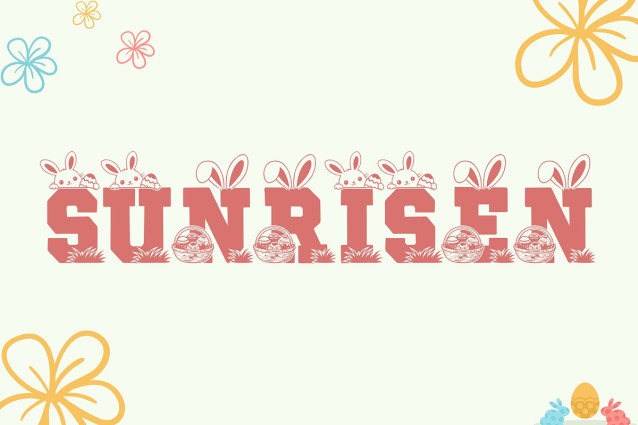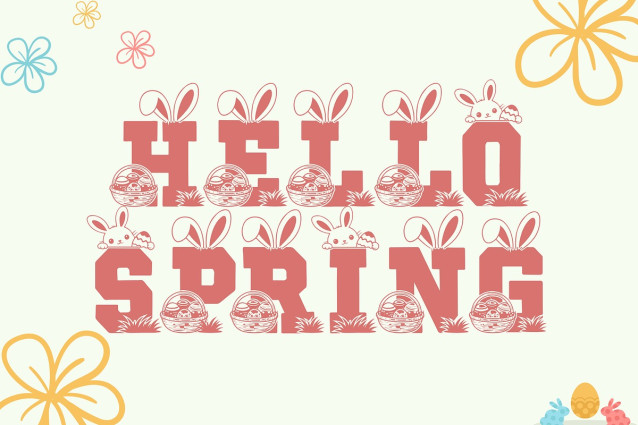
Blockton Easter Font
Blockton Easter Font is a bold block display font designed with a cheerful spirit. It keeps the strong, chunky structure of Blockton while adding a light, friendly seasonal feel that works perfectly for spring designs. The letterforms are thick and well balanced, so they stay clear and readable at any size. Use it for cards, gift tags, posters, classroom decor, packaging, stickers, and seasonal branding. As a result, your designs feel joyful, bold, and easy to spot.
Fast layouts with the Blockton Easter Font
Start with short, happy phrases and let the bold shapes lead. After that, add supporting text in a clean sans font for balance. Because Blockton Easter has strong geometry, it works especially well in badges, stacked layouts, and boxed designs. In addition, it shines on labels, signs, stickers, and printable decorations. Finally, try color pairs like pastel yellow & white, mint & cream, lavender & ivory, or sky blue & soft gray to lock in the vibe.